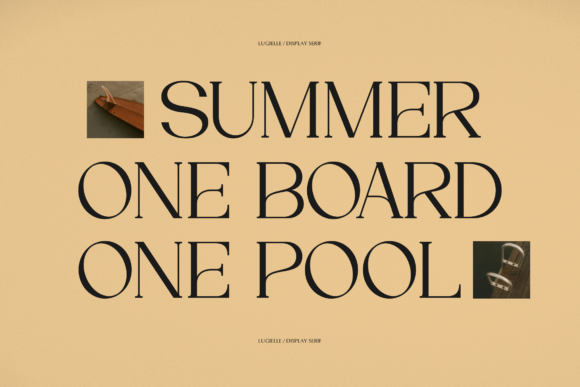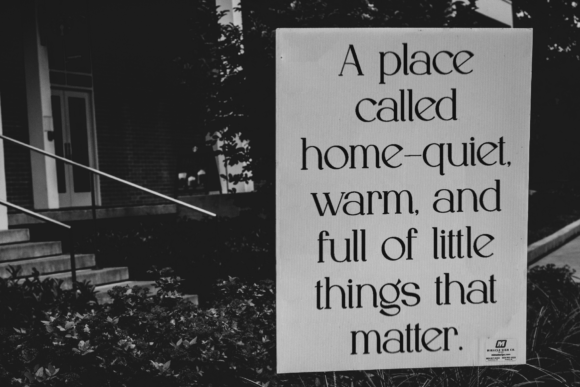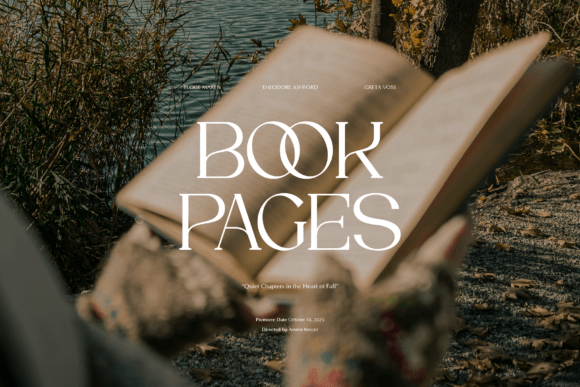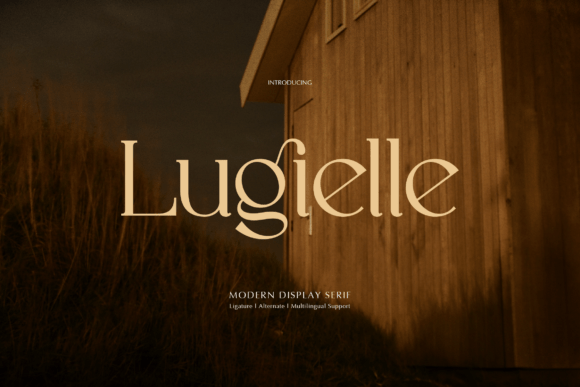
Introduction to Lugielle Font
Lugielle is a modern serif font, suitable for any projects such as: logos, branding projects, homeware designs, product packaging, mugs, quotes, posters, shopping bags, t-shirts, book covers, name card, invitation cards, greeting cards, label, photography, watermark, special events, and all your other lovely projects that need a Modern Display Serif taste.
Key Features of Lugielle Font
Why Choose Lugielle Font?
Lugielle Font offers exceptional quality and versatility, making it a valuable addition to your design toolkit. Whether you’re creating for personal projects or commercial use, Lugielle Font delivers professional results.